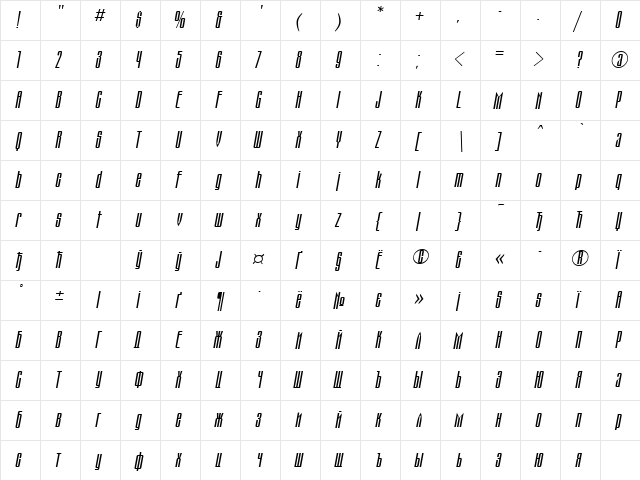
Montblanc Italic
Design Context for Montblanc Typeface
Montblanc offers clean, dependable letterforms without strong stylistic allegiance, making it a practical choice for designers who need flexibility. Its italic angle brings a sense of urgency and motion to the letterforms.